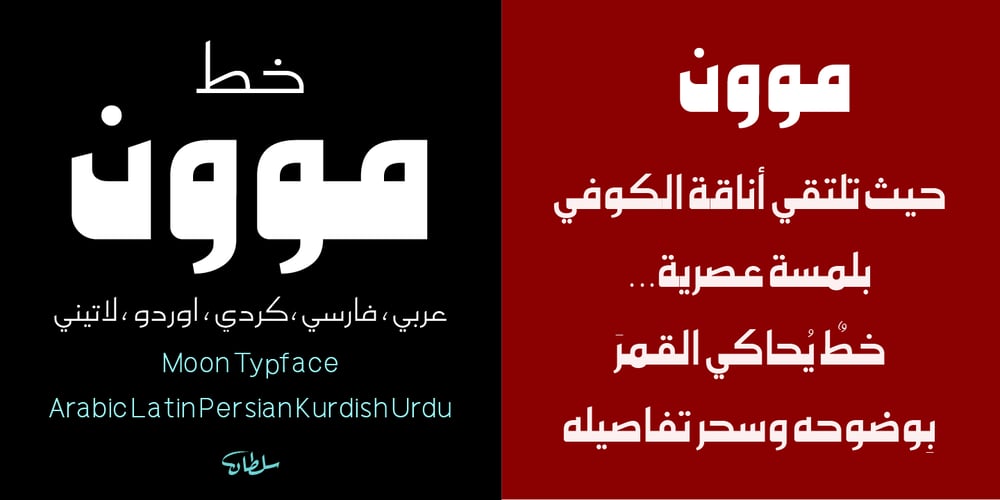
SF Moon
SF Moon font
SF Moon Font Family was designed by Sultan Maqtari and published by Sultan Fonts. SF Moon contains 4 styles and family package options. Moon FontFour Weights for Creative Headlines & Professional Designs!Looking for a bold and eye-catching font that adds a professional touch to your designs? Moon Font is the perfect choice! With four distinctive weights (Regular, Medium, Bold, and Black) and a sleek, modern design, it’s ideal for creating unforgettable headlines and stunning visual presentations.Moon Font Features:✔ Four versatile weights to suit all your design needs, from headlines to creative presentations.✔ Modern and stylish design that complements contemporary aesthetics.✔ High readability and clarity to make your headlines stand out.✔ Compatible with all systems and design software for seamless use.✔ Easy to use and optimized for fast performance in various projects.Perfect for:✓ Texts✓ Main and subheadings✓ Presentations✓ Banners and digital designs✓ Packaging and branding✓ Print advertisements and marketing materialsMoon Font – A Creative & Professional Touch for Your Designs!